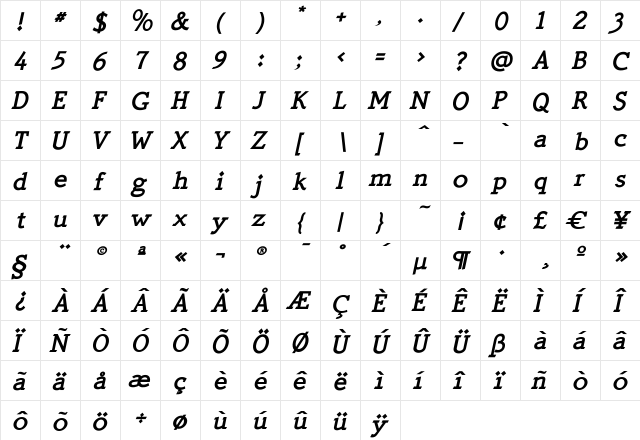
QuickType Bold Italic
Design Context for QuickType Typeface
QuickType takes a measured approach to typography — its balanced proportions and neutral character make it a reliable workhorse for both digital and print work. The slanted form adds forward momentum and visual energy. The heavy weight commands attention and anchors typographic hierarchies.